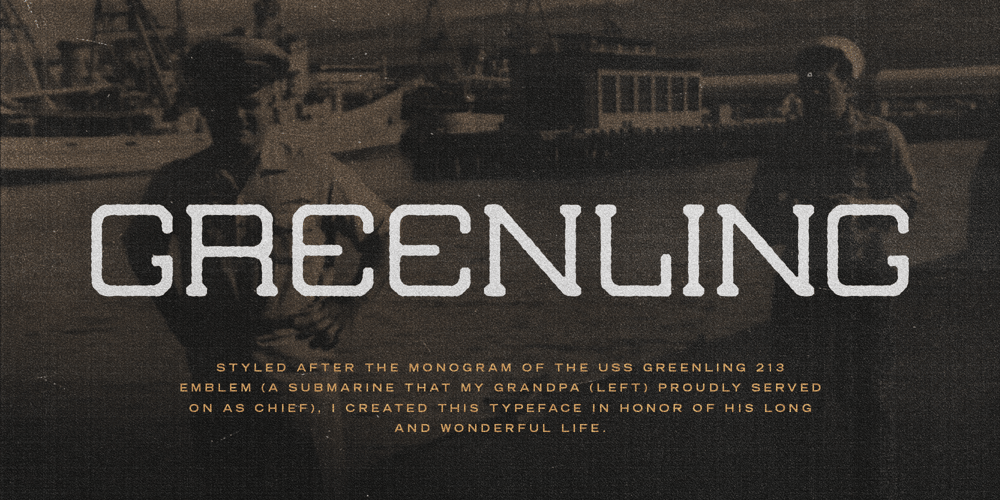
Greenling Font Family was designed by Chad Palmer and published by Palmer Type Company. Greenling contains 2 styles and family package options. Styled after the monogram of the USS Greenling 213 emblem (a submarine that my grandpa proudly served on), I created this typeface in honor of his long and wonderful life. With both Regular and Rough styles, this typeface comes complete with multi-language support, special characters and symbols.